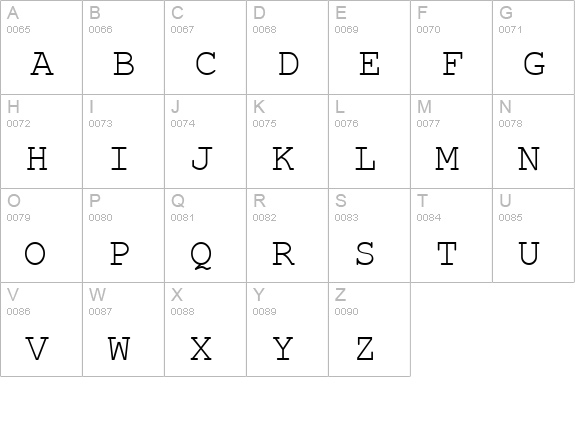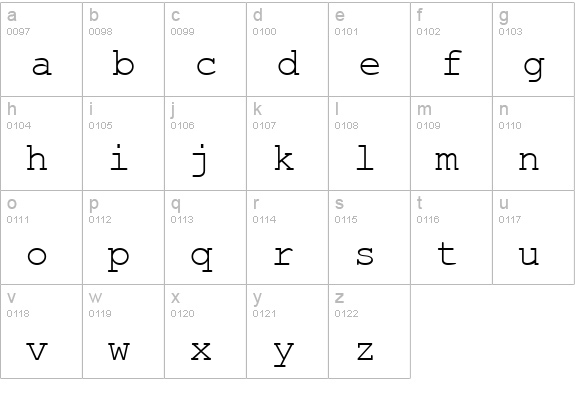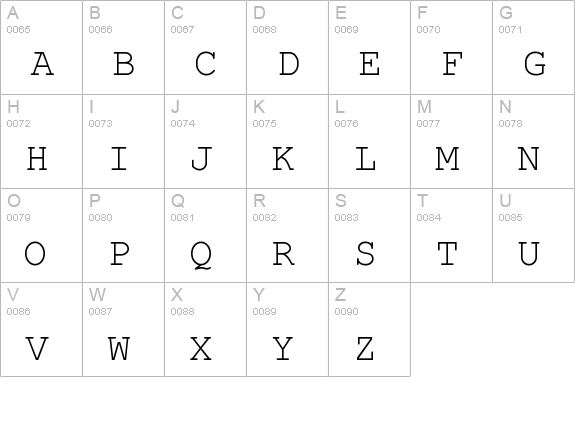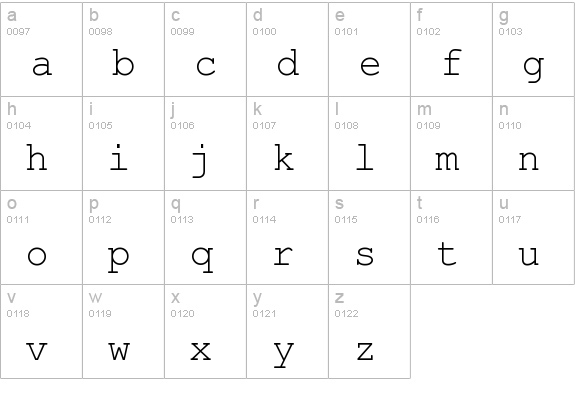
Bulgarian Courier Font Details
Bulgarian Courier font is a classic and stylish typeface that exudes elegance and professionalism. Its clean lines and timeless design make it perfect for a wide range of projects, from formal documents to creative designs. This font is versatile and easy to read, making it an excellent choice for any text-heavy content. The best part? Bulgarian Courier font is completely free to download at FontsMarket.com. You can add this sophisticated font to your collection without spending a dime. Whether you're creating a resume, designing a website, or crafting a print advertisement, Bulgarian Courier font will elevate your work to the next level. Download it today and enhance your projects with this elegant and timeless typeface.